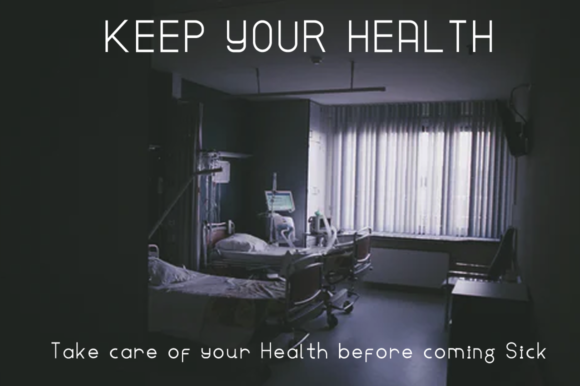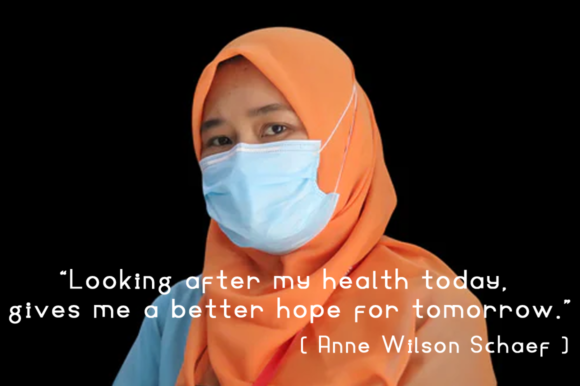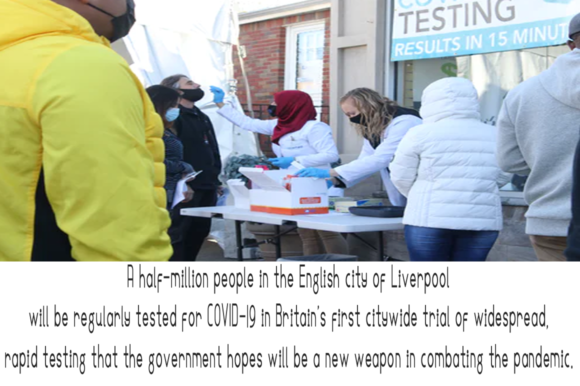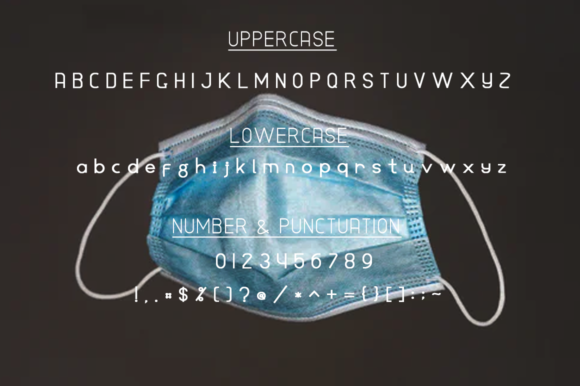
Enter Charlie Font, a sleek and modern sans serif font that’s designed to make your creative ideas shine. With its clean lines and minimalist aesthetic, Charlie Font is the perfect addition to any project. Whether you’re designing a logo, a brochure, or a website, this versatile font is sure to elevate your design and make it stand out.
Charlie Font Key Features
- Unique Characteristics: Charlie Font features a unique blend of modern and classic elements, with a distinctive x-height and letter spacing that sets it apart from other sans-serif fonts.
- Style Options: Charlie Font offers multiple style options, including Regular, Italic, Bold, and Bold Italic, allowing designers to add depth and variety to their designs.
Charlie Font Review
Overall, I’m quite impressed with Charlie Font. It’s a solid addition to any typography enthusiast’s arsenal. Here’s what I like about it: ✨
- Unique character set: Charlie Font offers a distinct character set that adds a touch of whimsy to any design.
- Well-crafted glyphs: The font’s glyphs are well-designed, with clear letterforms and even spacing.
- Good legibility: Charlie Font is easy to read, even at smaller font sizes.
- Perfect for creative projects: Its quirky character set makes it ideal for creative projects, like branding, advertising, and editorial design.
Of course, no font is perfect, and Charlie Font has some limitations: ⚠️
- Not suitable for body text: While Charlie Font is great for headlines, it’s not ideal for large blocks of body text.
- Limited language support: The font doesn’t support many languages, which might be a drawback for some designers.
- May not work well in all contexts: Charlie Font’s unique style might not be suitable for all design projects, especially those with a more conservative or formal tone.
Overall, I’d recommend Charlie Font for designers looking for a quirky, eye-catching font for creative projects. Just be mindful of its limitations and use it wisely.
Charlie Font is ideal for creating modern and elegant designs in Canva.
Charlie Font is suitable for creating high-end designs in Adobe Photoshop and Illustrator.
Charlie Font is ideal for creating professional-looking presentations and documents in PowerPoint and Word.
Charlie Font is suitable for:
- Creating modern and elegant designs.
- High-end branding and marketing materials.
- Professional presentations and documents.